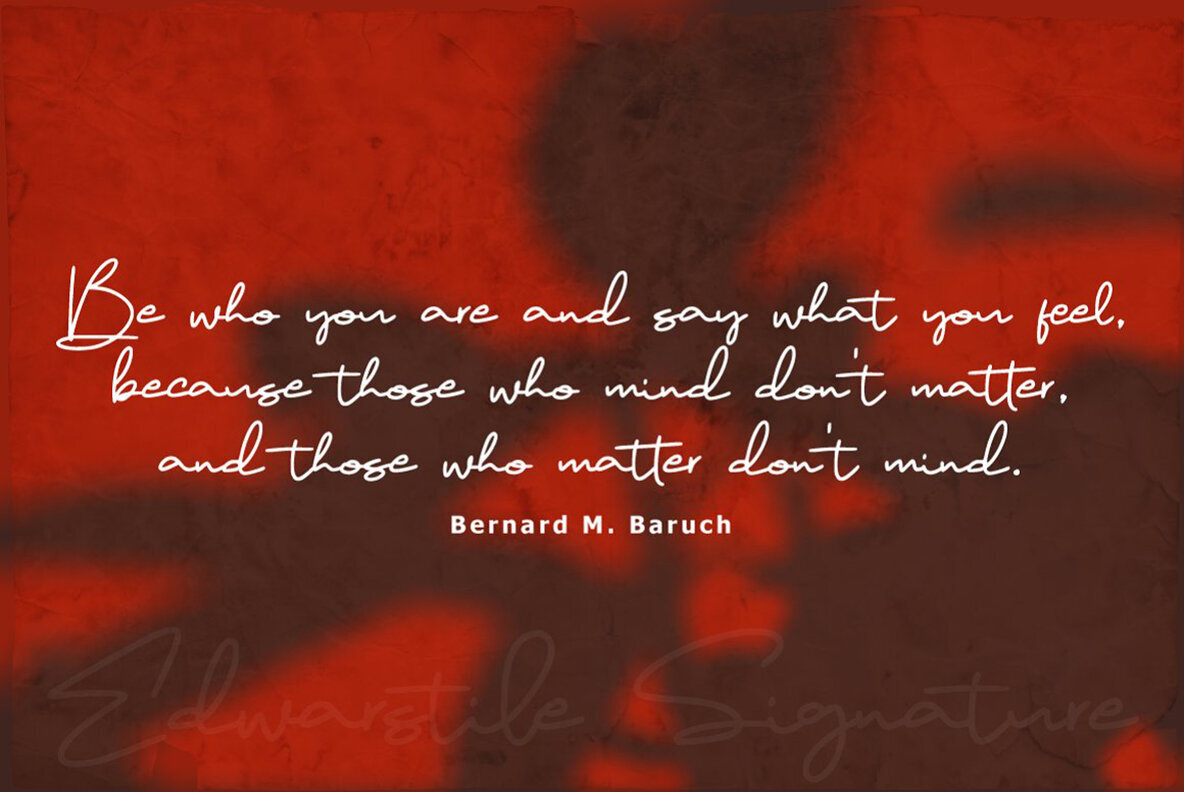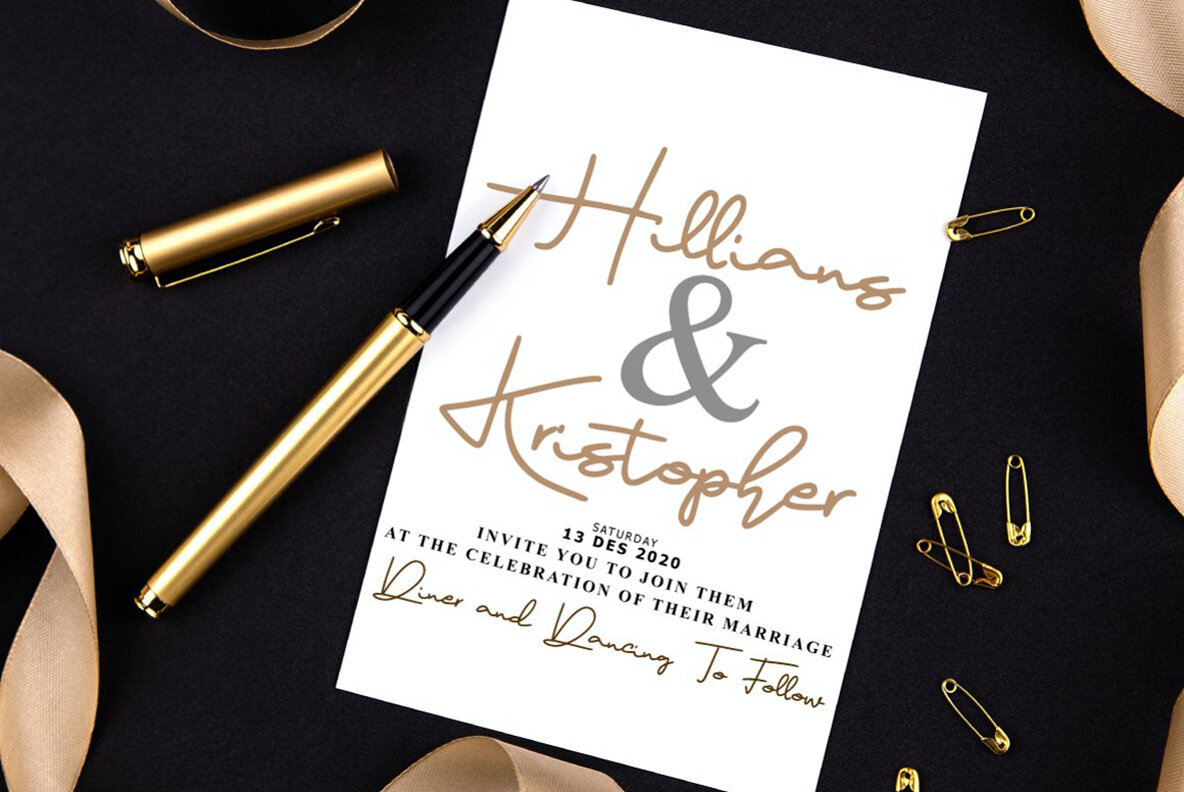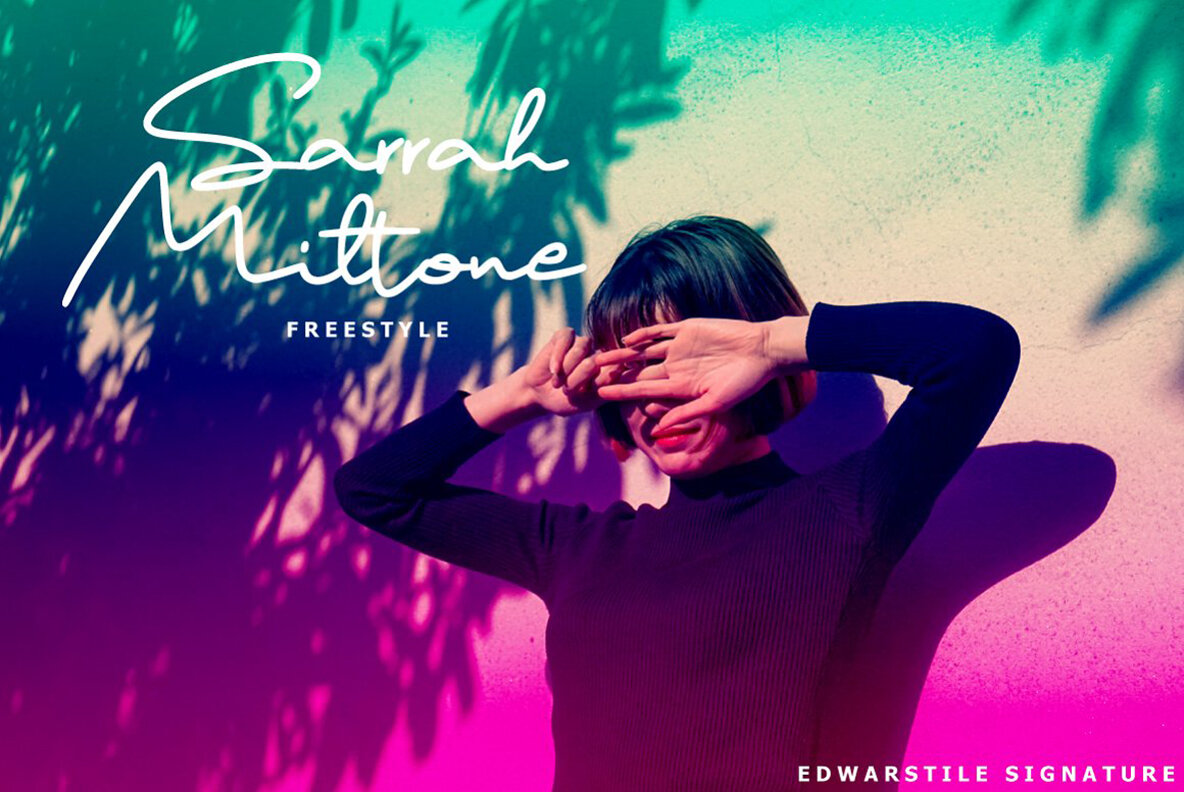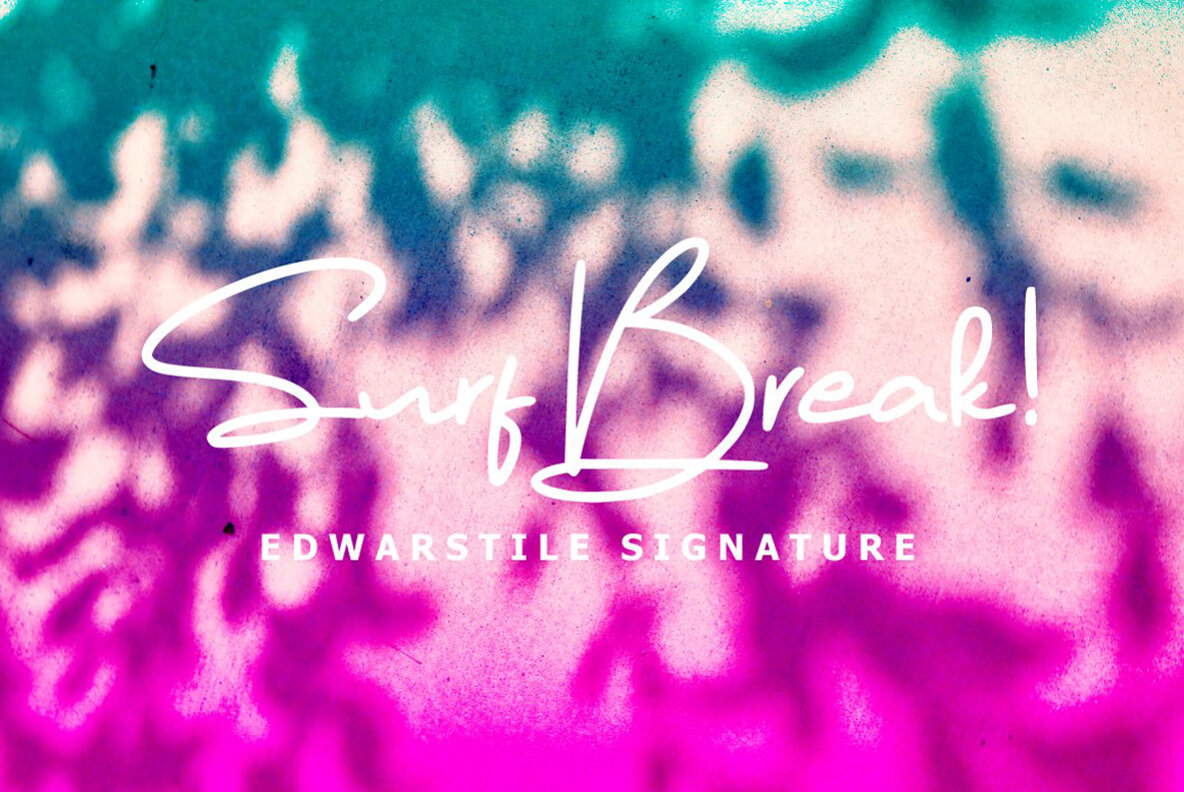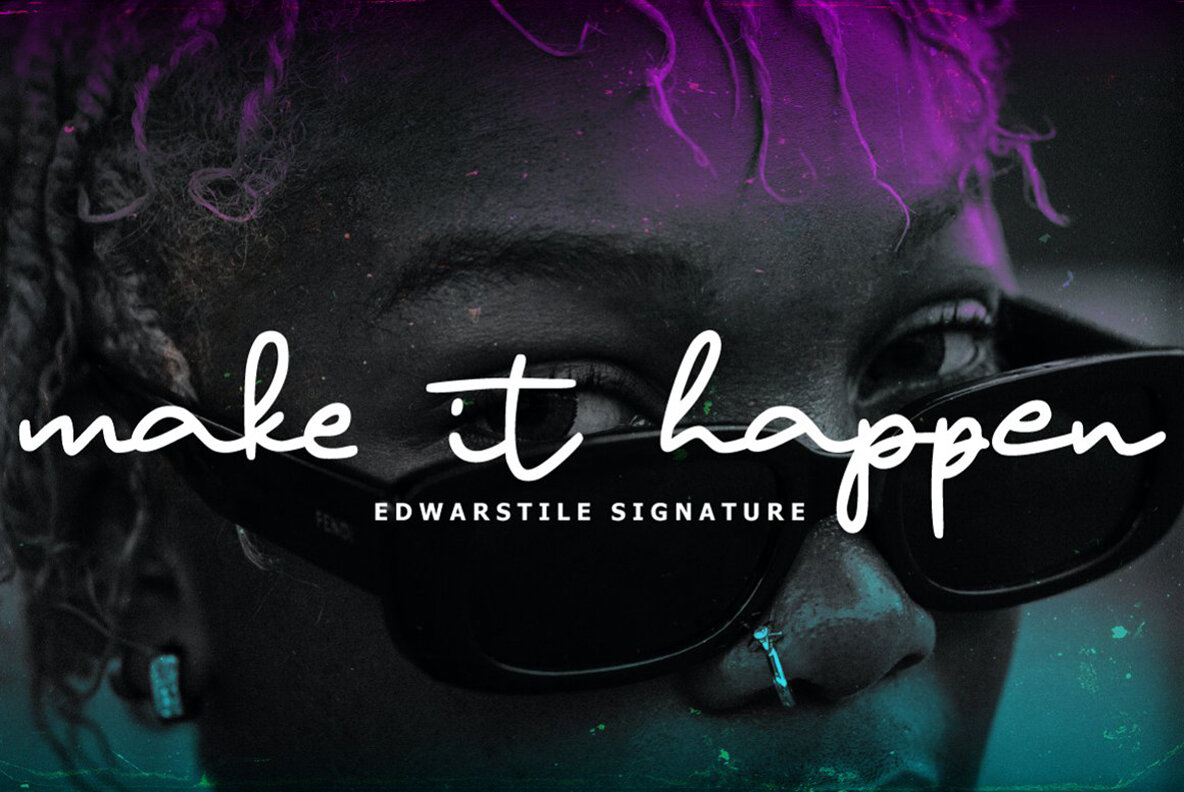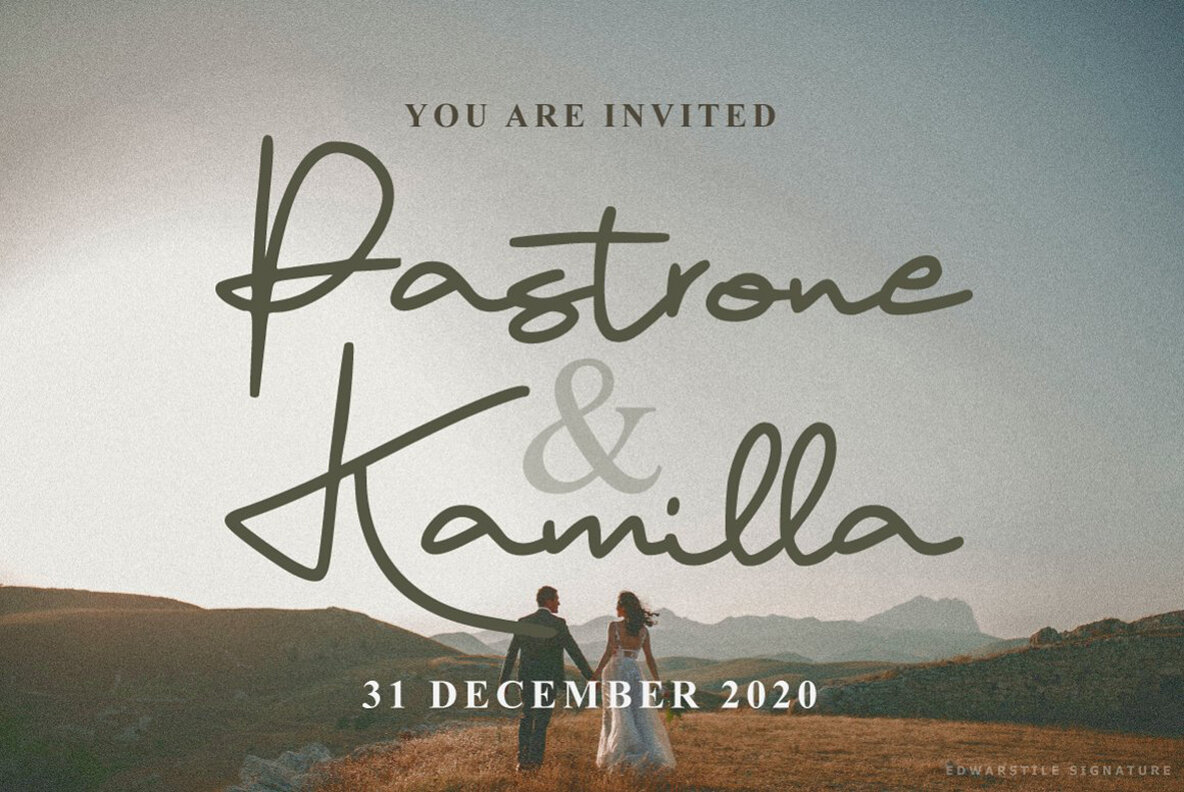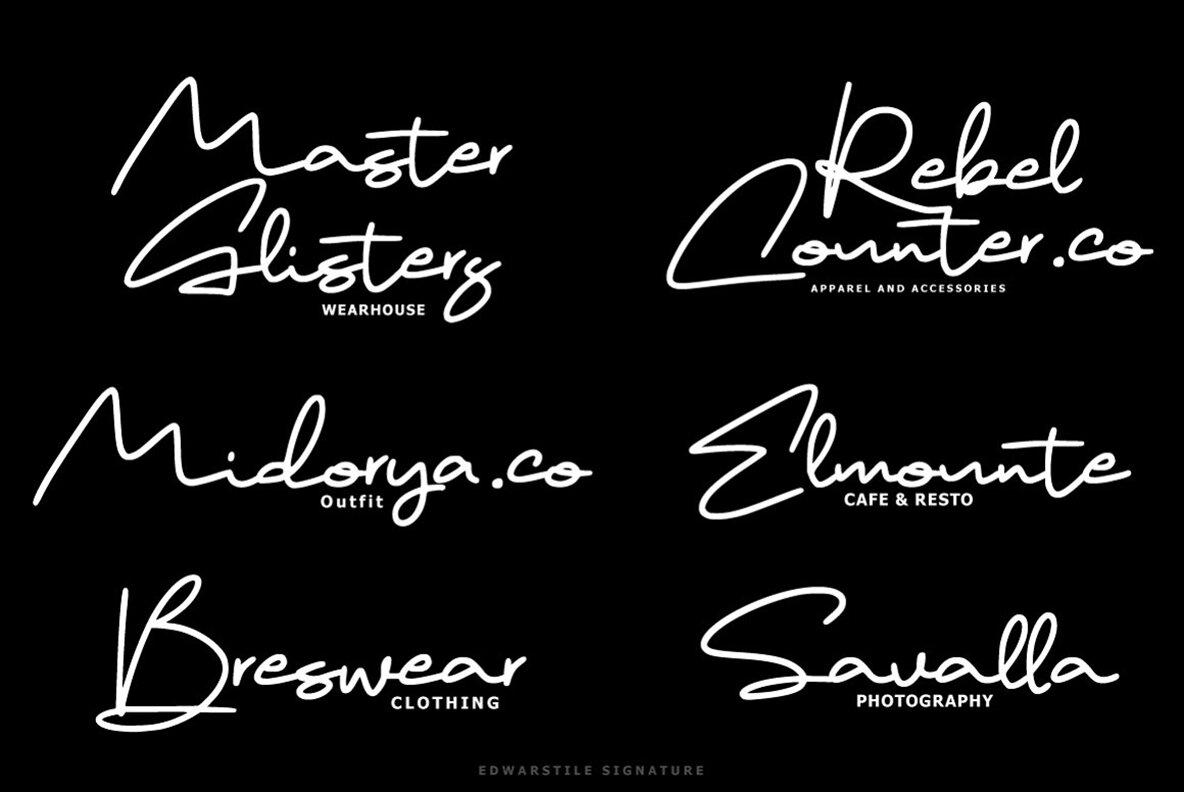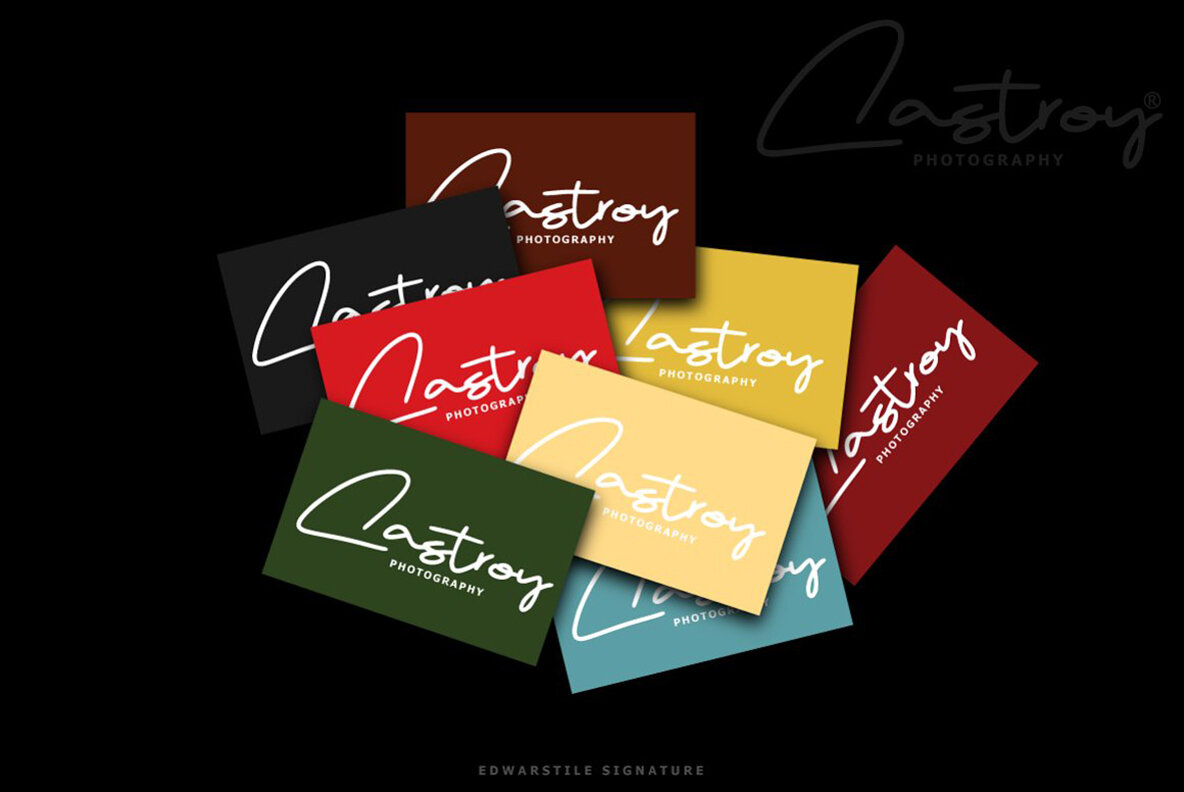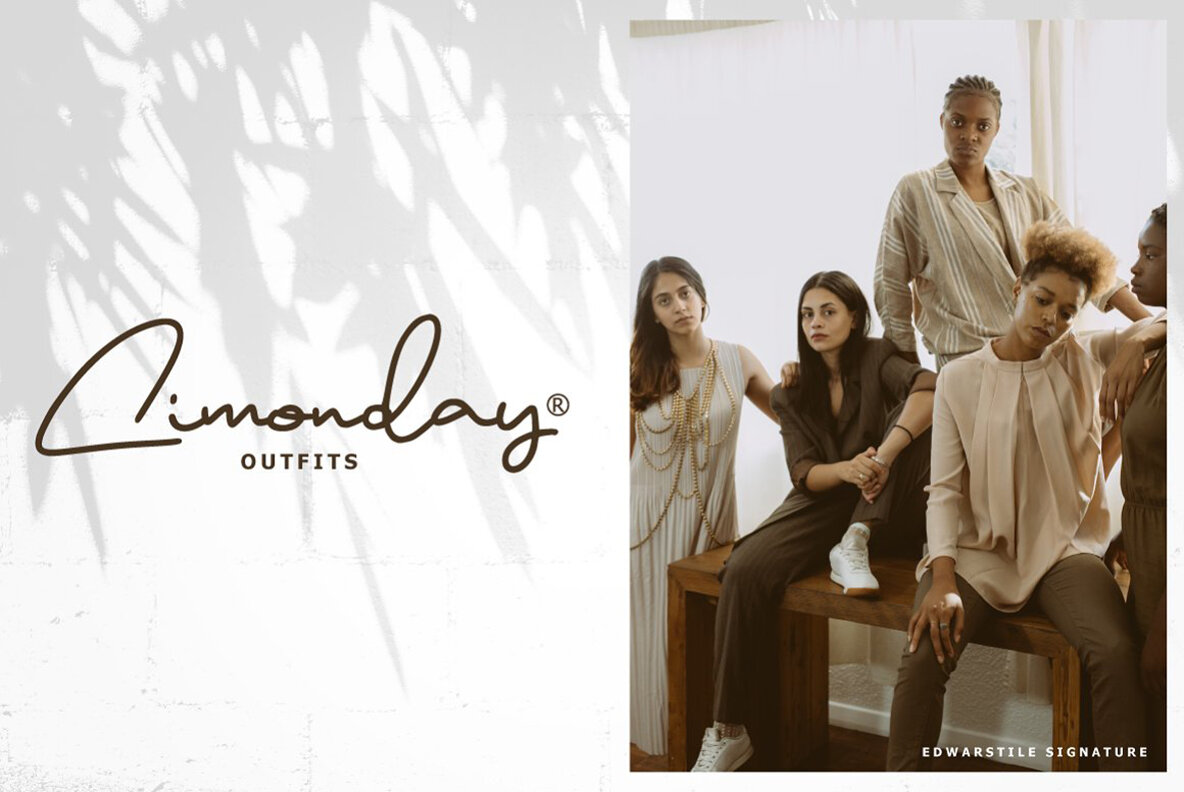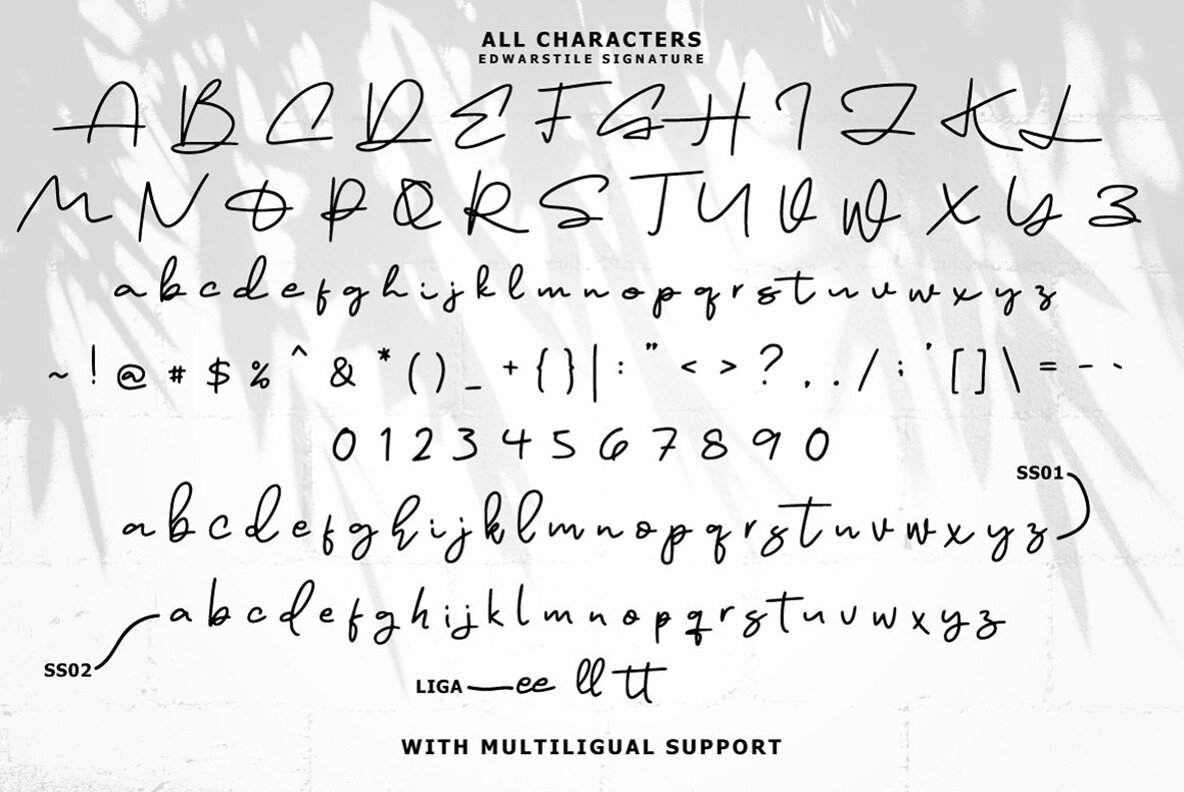
Edwarstile Signature Font
Edwarstile Signature
Edwarstile Signature is a font that embodies the grace and flow of handmade calligraphy. Perfect for adding an artistic touch to invitations, greeting cards, branding materials, business cards, quotes, and posters, it brings your designs to life with decorative characters and a dynamic baseline. This font boasts over 200 glyphs and offers a rich set of alternative characters through various OpenType features, including swashes, stylistic sets, stylistic alternates, and ligatures. It's compatible with OpenType-savvy programs such as Adobe Illustrator, InDesign, Photoshop, Corel Draw, and Microsoft Word. The PUA unicode allows full access to all alternate characters, making it a versatile tool for designers and craftsmen. Thank you,Edwarstile Signature: Elegant Calligraphy Font